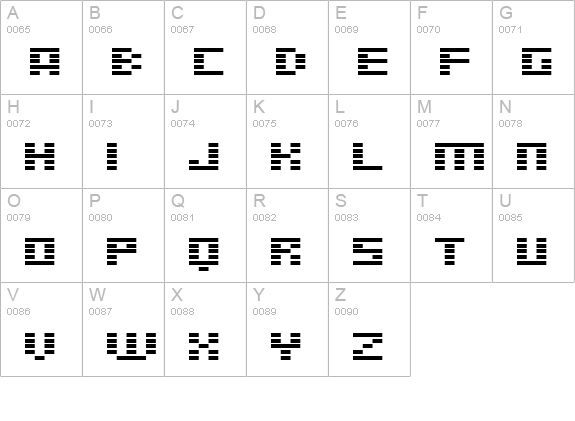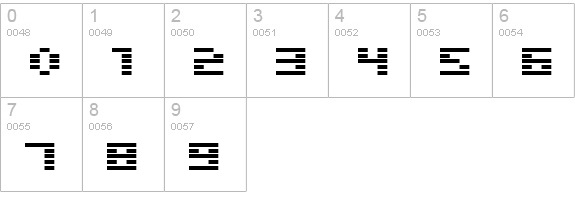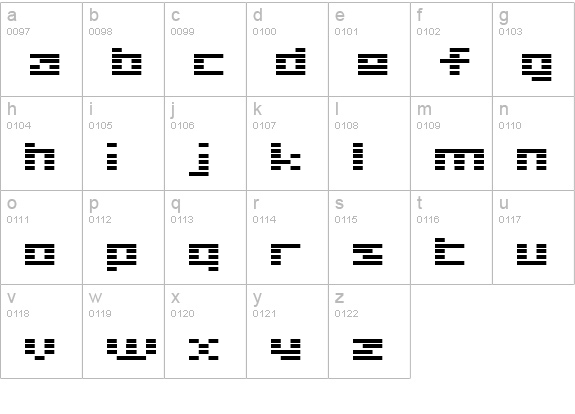
Introducing D3 Digitalism, a strikingly bold and futuristic font that captivates the essence of modernity and technological advancement. With its sleek and geometric design, this typeface exudes an air of sophistication and innovation that is perfect for any digital or tech-related project. D3 Digitalism is not only visually stunning but also highly versatile, making it suitable for a wide range of creative endeavors. Whether you're designing a cutting-edge website, crafting a captivating logo, or creating eye-catching marketing materials, this font will undoubtedly elevate your work to new heights. What sets D3 Digitalism apart is not only its impeccable design but also its accessibility. This font is freely available to download at FontsMarket.com, ensuring that everyone can enjoy its undeniable charm without any restrictions. Embrace the freedom and flexibility that this font brings, allowing your creative vision to flourish without limitations. With its clean lines, sharp edges, and perfectly balanced letterforms, D3 Digitalism demands attention and leaves a lasting impression. Its precise and contemporary aesthetic will effortlessly convey a sense of professionalism and forward-thinking to your projects, making it an essential addition to any designer's toolkit. So, whether you're a seasoned professional or a passionate enthusiast, D3 Digitalism is the font that will unlock your creative potential. Embrace its modernity, revel in its versatility, and unleash your imagination with this remarkable typeface. Download D3 Digitalism for free at FontsMarket.com and embark on a design journey that knows no boundaries.